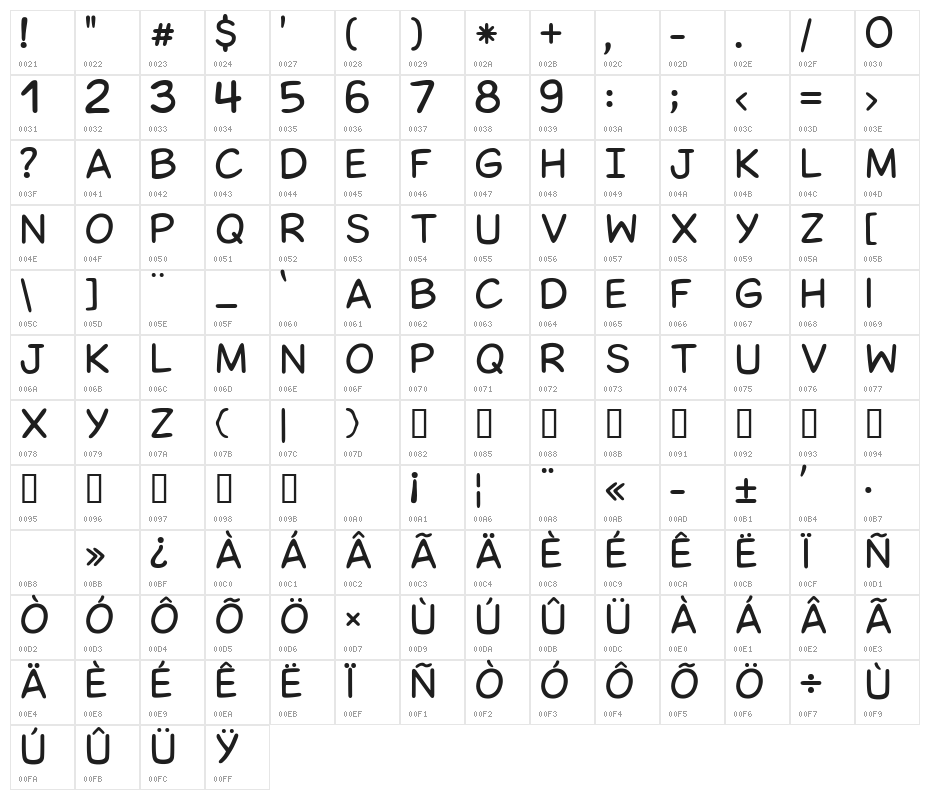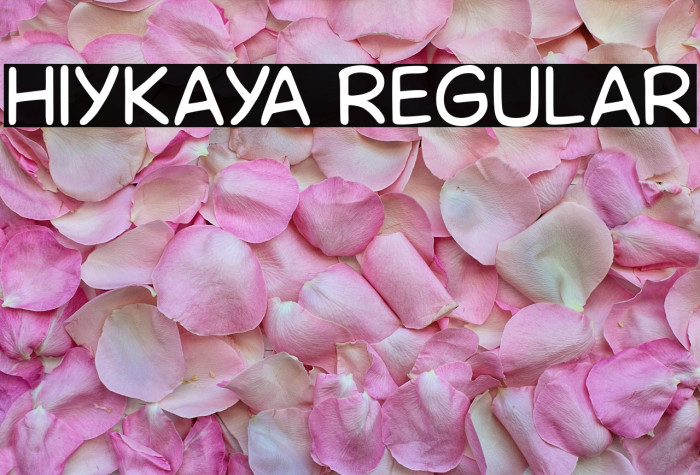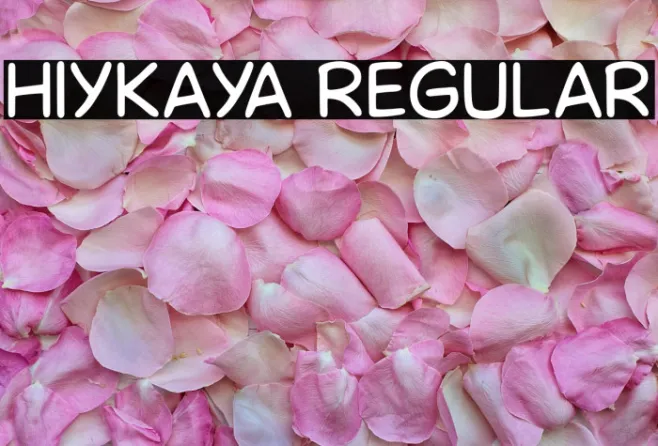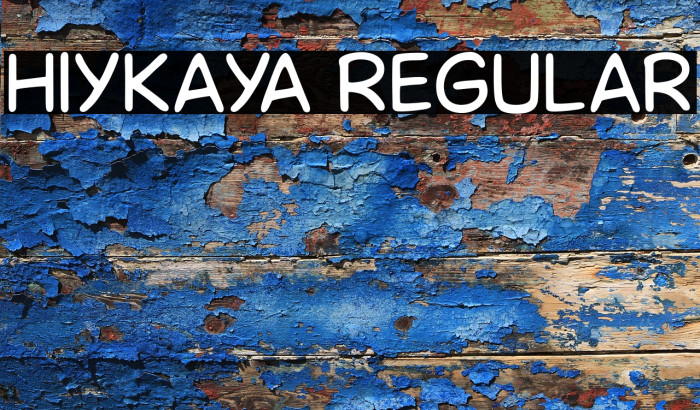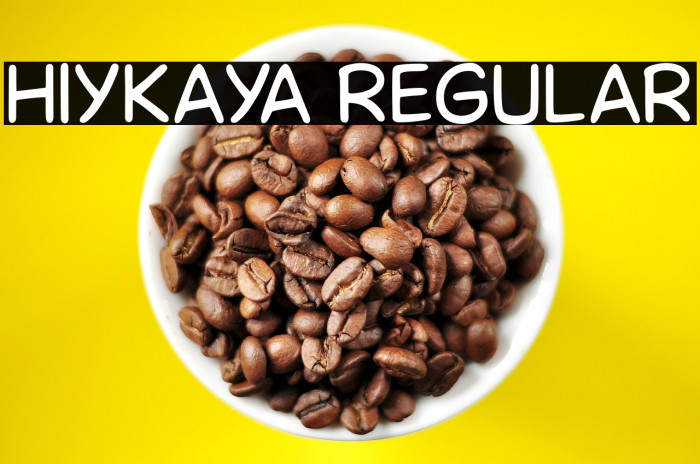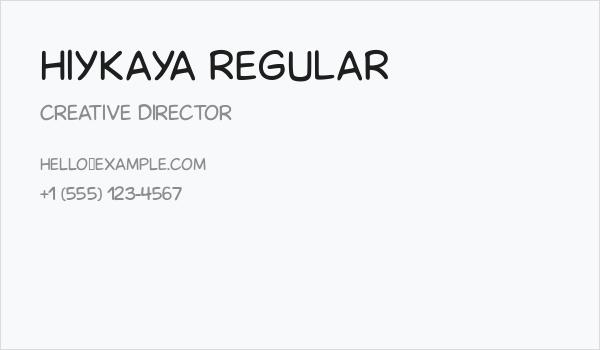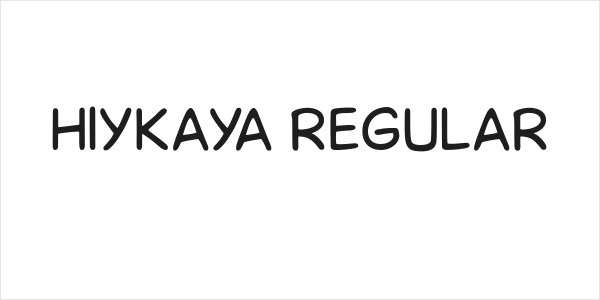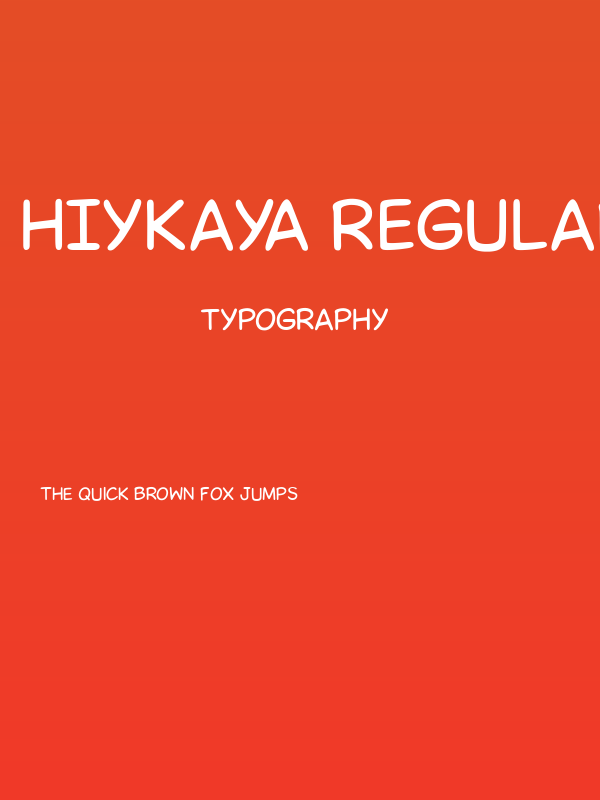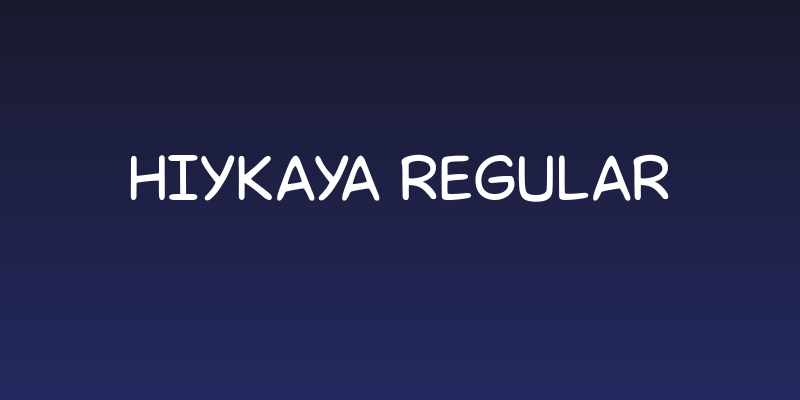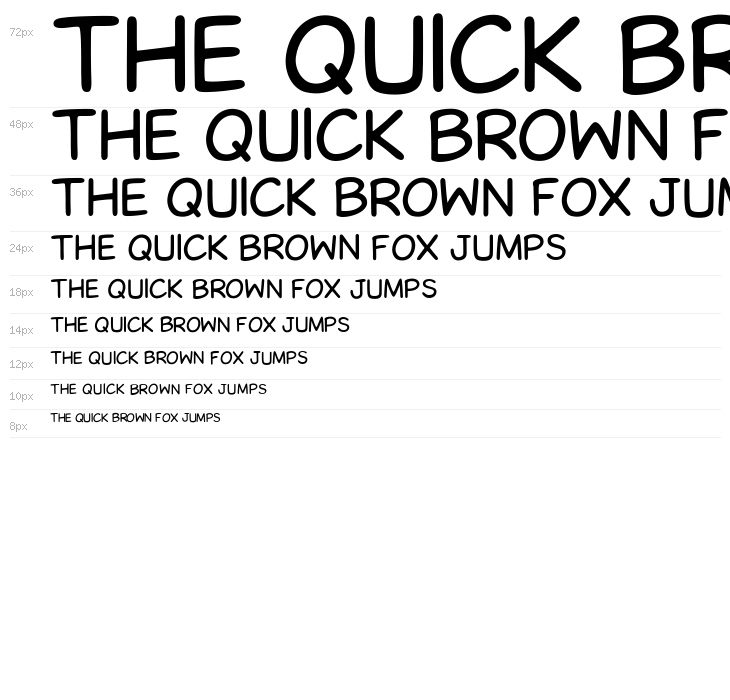
Hiykaya Regular Font
Hiykaya Regular Description
This font features a playful and rounded style, characterized by smooth curves and a friendly appearance. The letters are evenly spaced, providing a clean and approachable look. The strokes are consistent in thickness, offering a uniform and balanced aesthetic. The font includes both uppercase and lowercase letters, numerals, and a variety of special characters, making it versatile for different uses. Its casual and informal style makes it suitable for projects that require a touch of whimsy and approachability.
| Proposed Projects | Ideal for children's books, playful branding, casual invitations, and friendly marketing materials. |